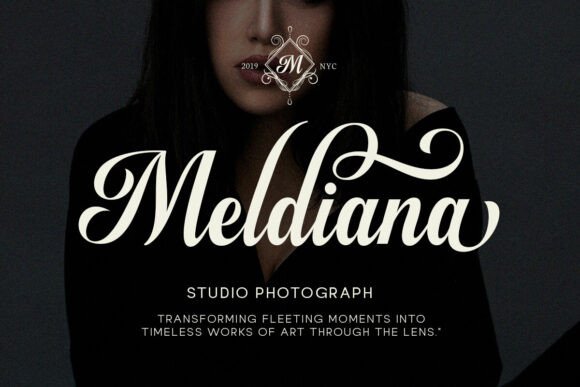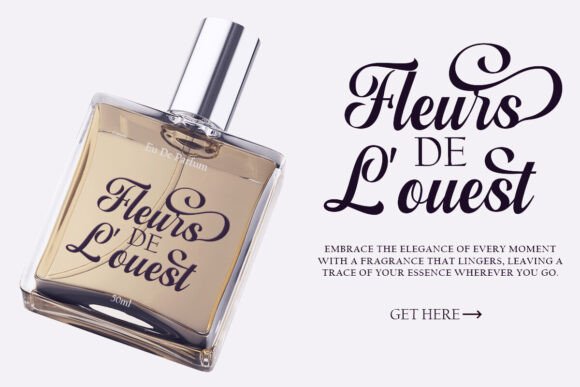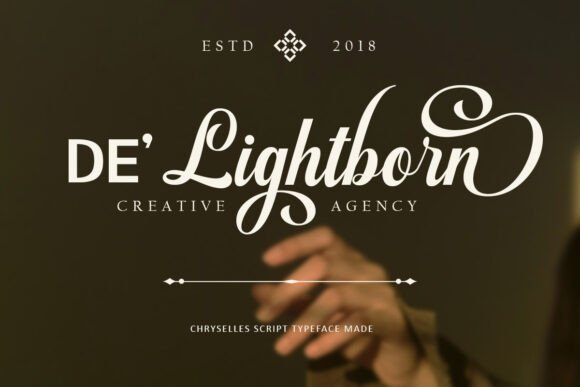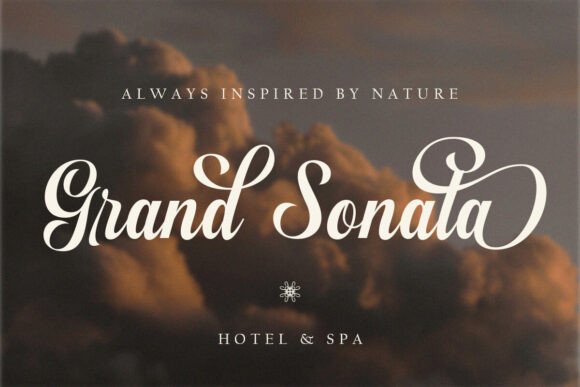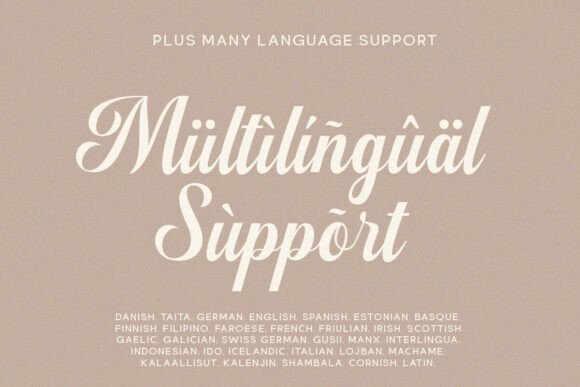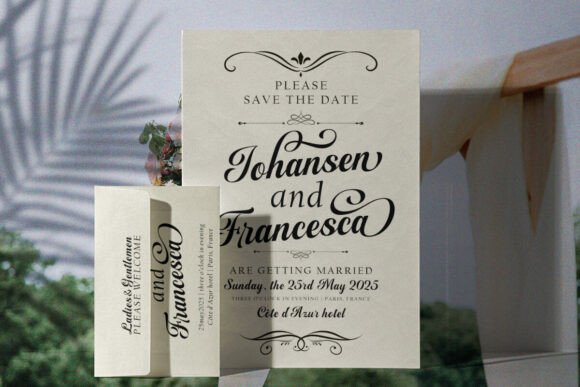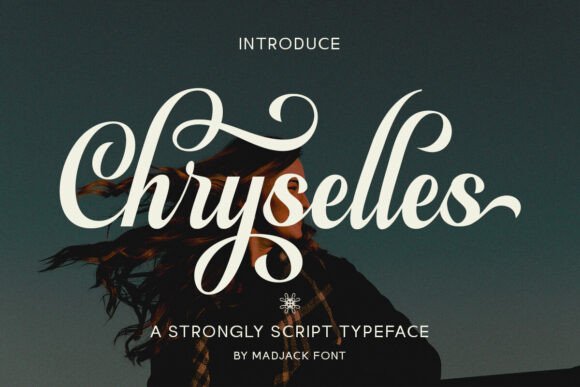
Introducing Chryselles Script Font: Elevate Your Designs with Unique Style
In the world of typography, a font can make or break a design. For designers and crafters looking to add a touch of elegance and personality to their projects, Chryselles Script Font is an exceptional choice. This script font stands out with its distinctive characters, each imbued with its own charm, ensuring that your designs are not only attractive but also uniquely captivating.
What Makes Chryselles Script Font Special?
Chryselles Script Font is not just any script font; it’s a comprehensive typeface designed to offer versatility and style. Here are some key features that make it a must-have for designers:
- Unique Characters: Every letter and number in Chryselles Script Font is crafted to provide a distinctive look, allowing your designs to stand out from the crowd.
- OpenType Features: This font comes equipped with advanced OpenType features, including a style set of up to 130. This extensive range of features gives you the flexibility to experiment with various letter variations, ligatures, and multilingual support.
- Versatility: Whether you’re working on logo designs, invitations, posters, or any other graphic design project, Chryselles Script Font is perfectly suited to bring your creative visions to life.
Exploring the OpenType Features
The OpenType features of Chryselles Script Font are truly its backbone, offering a wide array of stylistic options. With up to 130 style sets at your disposal, you can significantly expand the typographic possibilities of your projects. Here are some of the benefits of these features:
- Stylistic Sets: Access a vast collection of stylistic sets that allow you to modify the appearance of your text. From subtle variations to more dramatic changes, these sets give you the power to customize your designs extensively.
- Ligatures: Ligatures are essential for creating a natural flow in script fonts. Chryselles Script Font offers a range of ligatures, ensuring that your text appears cohesive and beautifully connected.
- Multilingual Support: In today’s globalized world, multilingual support is a valuable asset. Chryselles Script Font provides this support, making it easier to create designs that cater to diverse audiences.
Applications of Chryselles Script Font
The versatility of Chryselles Script Font makes it suitable for a wide range of design applications. Here are some of the areas where this font truly shines:
- Logo Designs: Create memorable and stylish logos that reflect the personality of your brand. The unique characters in Chryselles Script Font ensure that your logo stands out.
- Invitations: Whether it’s a wedding invitation, a birthday party invite, or any other special occasion, this font adds a touch of elegance and sophistication.
- Posters: From advertising posters to event promotions, Chryselles Script Font can be used to create eye-catching and effective designs.
- Graphic Design Projects: Beyond the mentioned applications, this font is suitable for a variety of graphic design projects, including brochures, flyers, and more.
Tips for Using Chryselles Script Font
To make the most out of Chryselles Script Font, consider the following tips:
- Experiment with Style Sets: Don’t hesitate to explore the various style sets available. Experimenting with these sets can help you find the perfect look for your project.
- Pay Attention to Ligatures: Ligatures play a crucial role in script fonts. Make sure to use them appropriately to maintain the flow and natural appearance of your text.
- Combine with Other Fonts: For added versatility, consider pairing Chryselles Script Font with other fonts. This can help create visual interest and hierarchy in your designs.
Chryselles Script Font is a powerful tool for designers and crafters looking to add a unique and stylish touch to their projects. With its distinctive characters, extensive OpenType features, and versatility, this font is sure to elevate your designs. Whether you’re working on a logo, invitation, poster, or any other graphic design project, Chryselles Script Font is an excellent choice. Explore its capabilities and discover how it can transform your creative work.